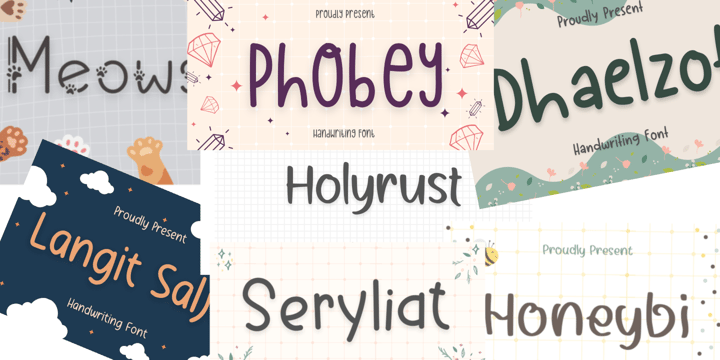
Mix Bundle
The Mix Font Bundle offers a versatile and thoughtfully curated collection of 21 unique fonts, designed to elevate your creative projects with style and personality. This bundle includes a rich variety of typefaces, ranging from elegant handwriting styles that bring a natural, personal touch, to expressive script fonts that add fluidity and charm, as well as ornate decorative fonts that make bold, eye-catching statements.
Whether you’re working on branding, social media graphics, invitations, logos, packaging, or digital artwork, this collection provides the flexibility to match any aesthetic or mood. Each font is crafted to deliver clarity, creativity, and visual impact, making it easy to experiment with different looks and bring your ideas to life.
Perfect for designers, content creators, and anyone looking to enhance their typography, the Mix Font Bundle empowers you to create distinctive and memorable designs with ease.